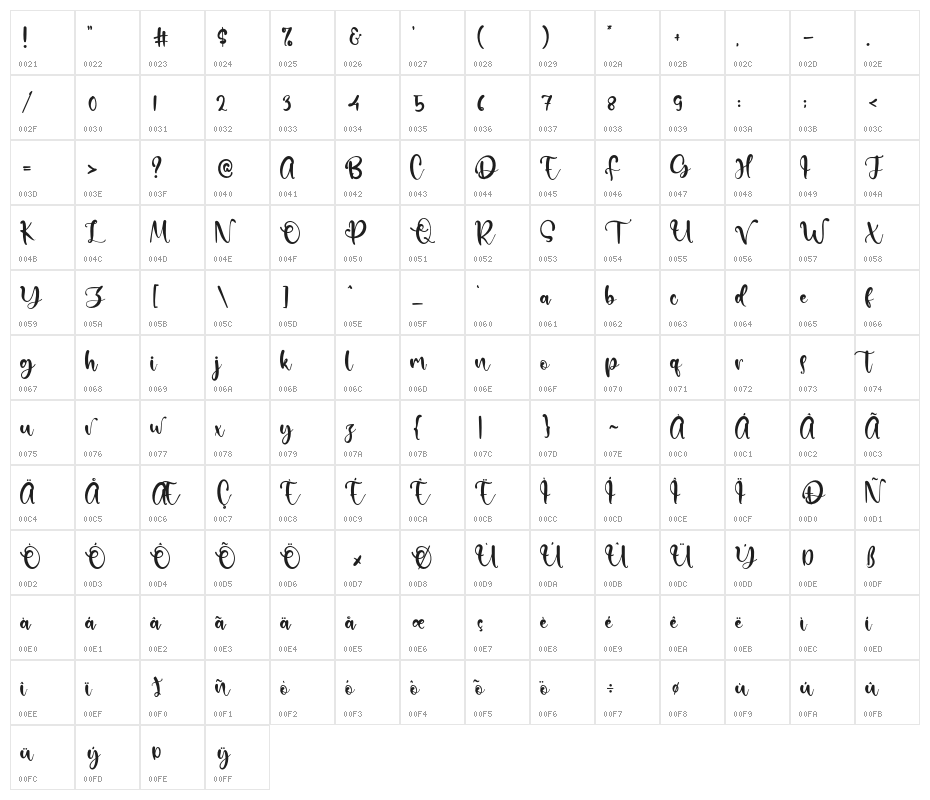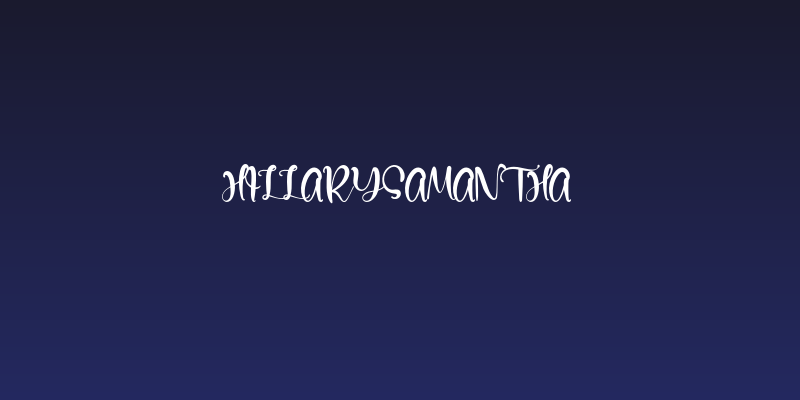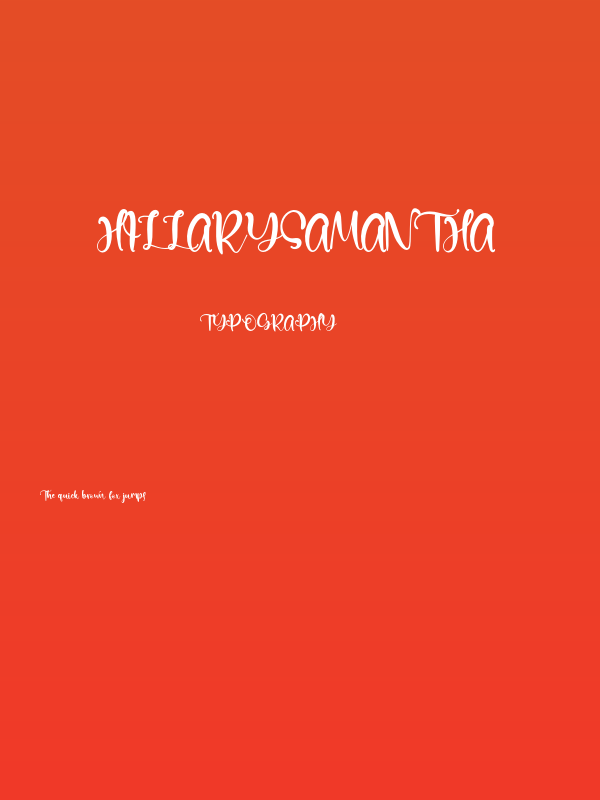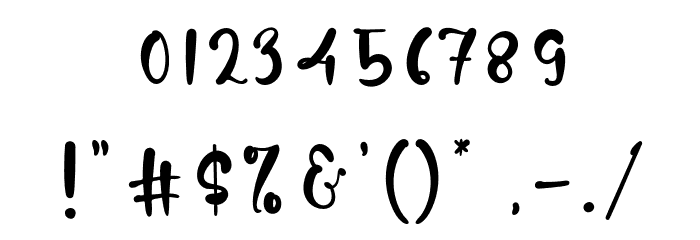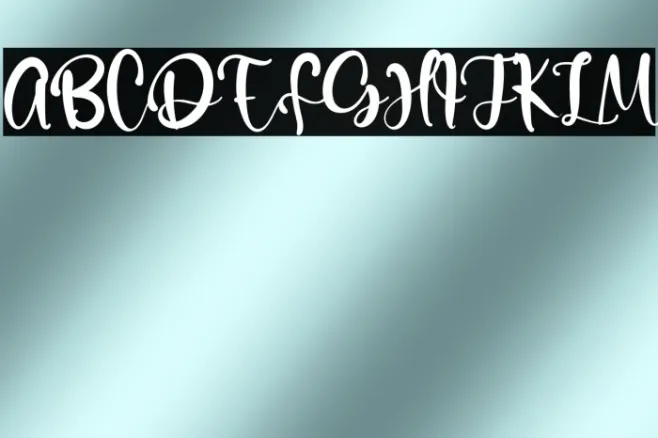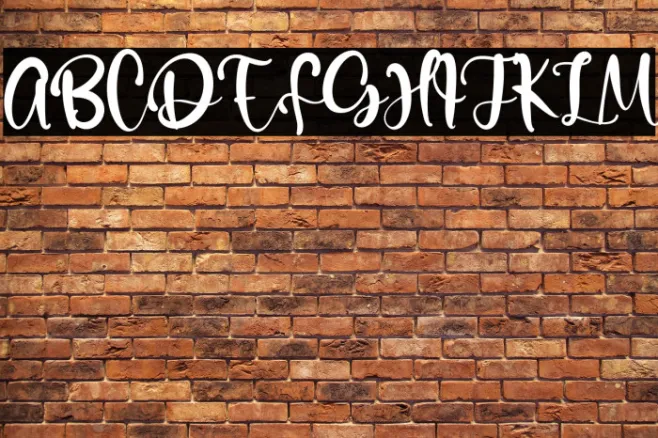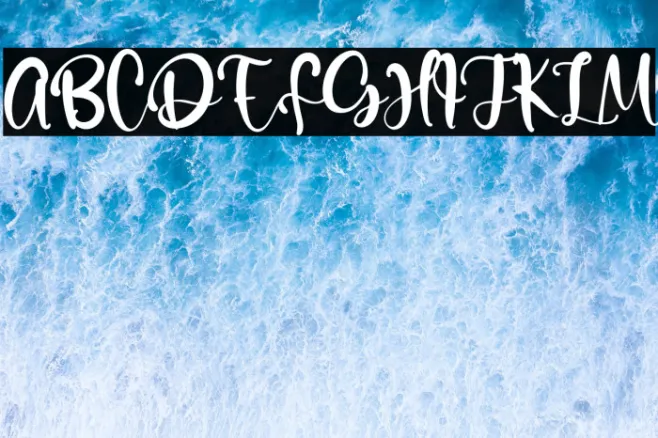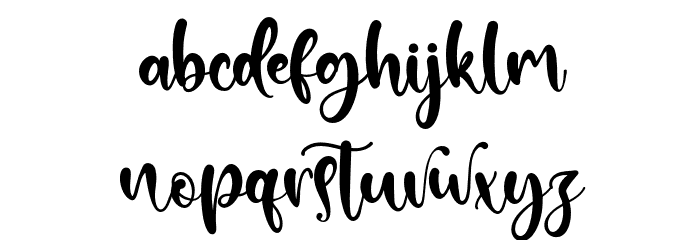
HillarySamantha Font
HillarySamantha Description
This font features a playful and elegant script style with a hand-drawn appearance. The letters are connected, giving it a fluid and continuous look, reminiscent of cursive handwriting. The uppercase letters are bold and slightly exaggerated, while the lowercase letters maintain a consistent flow with a slightly whimsical touch. The numbers and special characters are designed to match the overall style, maintaining the same playful and artistic quality. This font is perfect for adding a personal and creative touch to any project.
| Font Family | Hillary Samantha |
| Proposed Projects | Ideal for wedding invitations, greeting cards, logos, and branding materials that require a personal and artistic touch. |